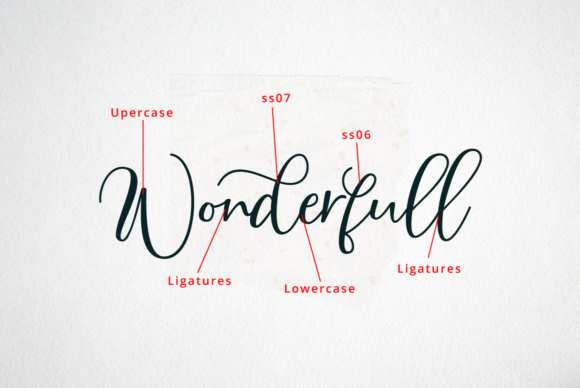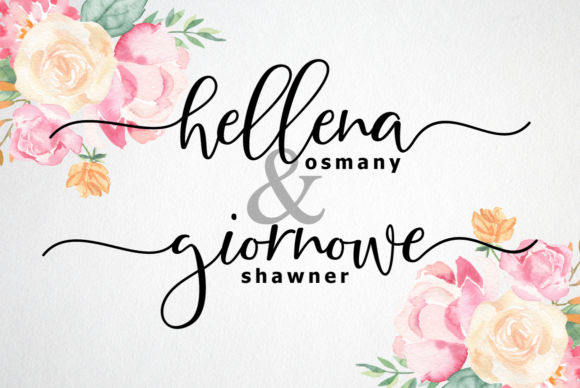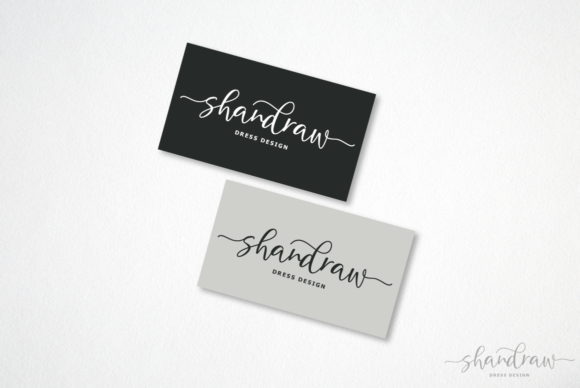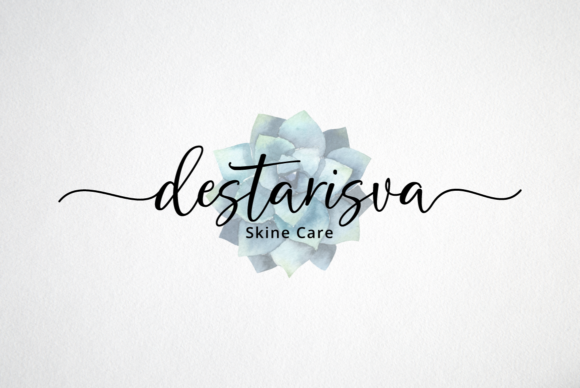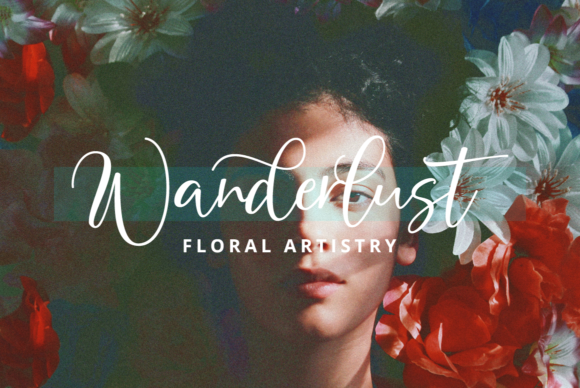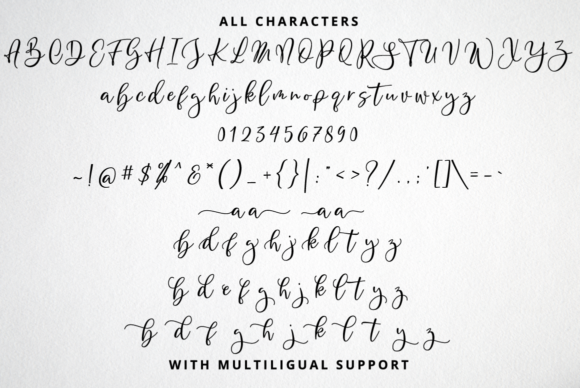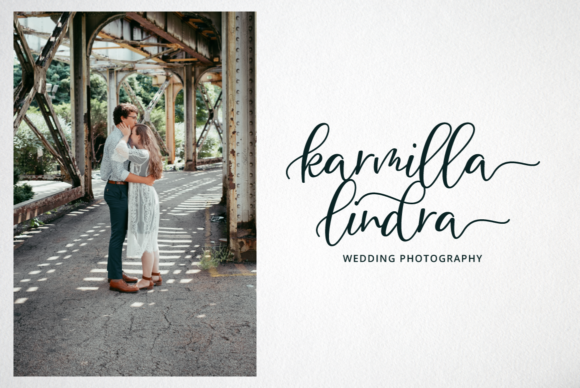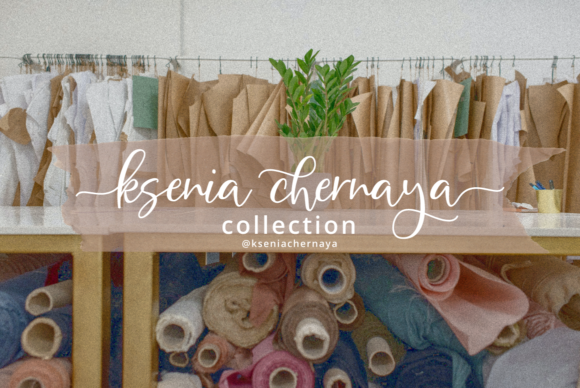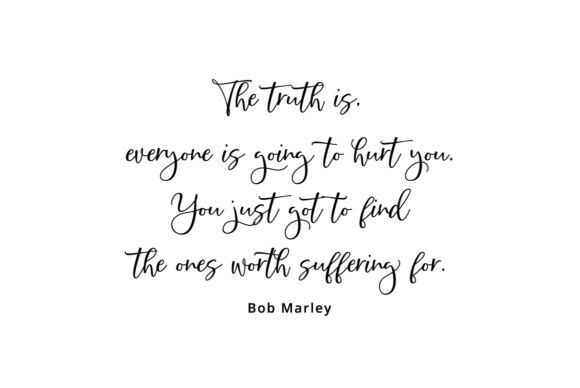
Barthley Font
About Barthley Font
“Barthley” emerges as a font of unparalleled elegance and style, setting the stage for a design experience that is both refined and captivating. With its exquisite script and sophisticated demeanor, this font transforms various projects, from wedding invitations to logos, into veritable works of art that bear the mark of a masterful touch.
What truly distinguishes “Barthley” is its ability to seamlessly blend style with sophistication. Its meticulously crafted letters exude an air of timeless beauty, reminiscent of calligraphy penned with the utmost care. With each stroke, the font weaves an aura of refined charm, encapsulating the essence of grace.
Picture the transformative potential of “Barthley” on a spectrum of designs—a luxurious wedding invitation adorned with the font’s elegant script, setting the tone for an unforgettable celebration. Envision the font gracing a business card, imparting a sense of professionalism and flair that leaves a lasting impression. This font’s versatility extends gracefully across contexts, adding an element of refined artistry to every project it touches.
The natural allure of “Barthley” is nothing short of mesmerizing. Its letters flow like silk on the page, exuding a sense of sophistication that elevates the overall design. The font itself radiates an aura of elegance, inviting creators to explore the depths of their artistic potential.
Designers and enthusiasts alike will undoubtedly find themselves captivated by the refined beauty of “Barthley.” Its adaptability transcends the boundaries of conventional typography, making it an indispensable tool for a myriad of projects. Beyond being a mere font, “Barthley” evolves into a channel for self-expression, empowering creators to infuse their work with an element of refined elegance.
In essence, “Barthley” stands as a testament to the artistry that typography can encompass. Its stylish script beckons you to embark on a journey of design, transforming your visions into tangible creations that resonate with a timeless and sophisticated beauty. As you navigate the realm of creativity, let “Barthley” be your guiding companion, leading you to craft designs that mirror the essence of elegance and elegance, while offering a seamless access to its wealth of glyphs and swashes.